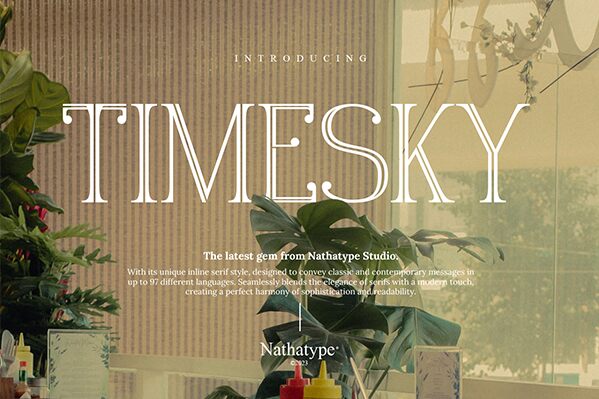
Timesky font, designed by Nathatype, is a free display font that encapsulates the retro vibe with a modern twist. Its sophisticated appearance lies in its elegance and character with influences from classic art deco styles. A refined and versatile font suitable for those who seek a modern-looking retro-styled typeface.
Timesky is ideal for headlines, branding designs, and packaging of products. Use it on shop signs and invites or labels of limited edition items. It also works with web graphics including social media cover images or those shared within posts. Apply it to flyers and business card designs as well as posters used outdoors or indoors.